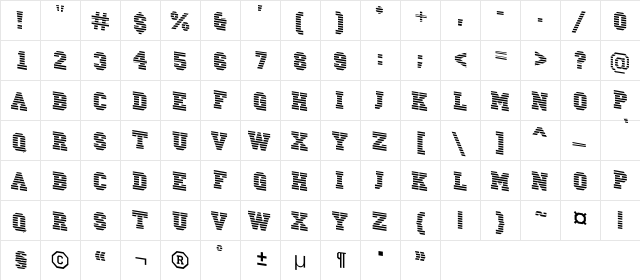
a_CampusMarineDn Regular
Design Context for a_CampusMarineDn Typeface
a_CampusMarineDn is a composed and adaptable typeface that performs quietly and consistently across a wide range of design contexts.